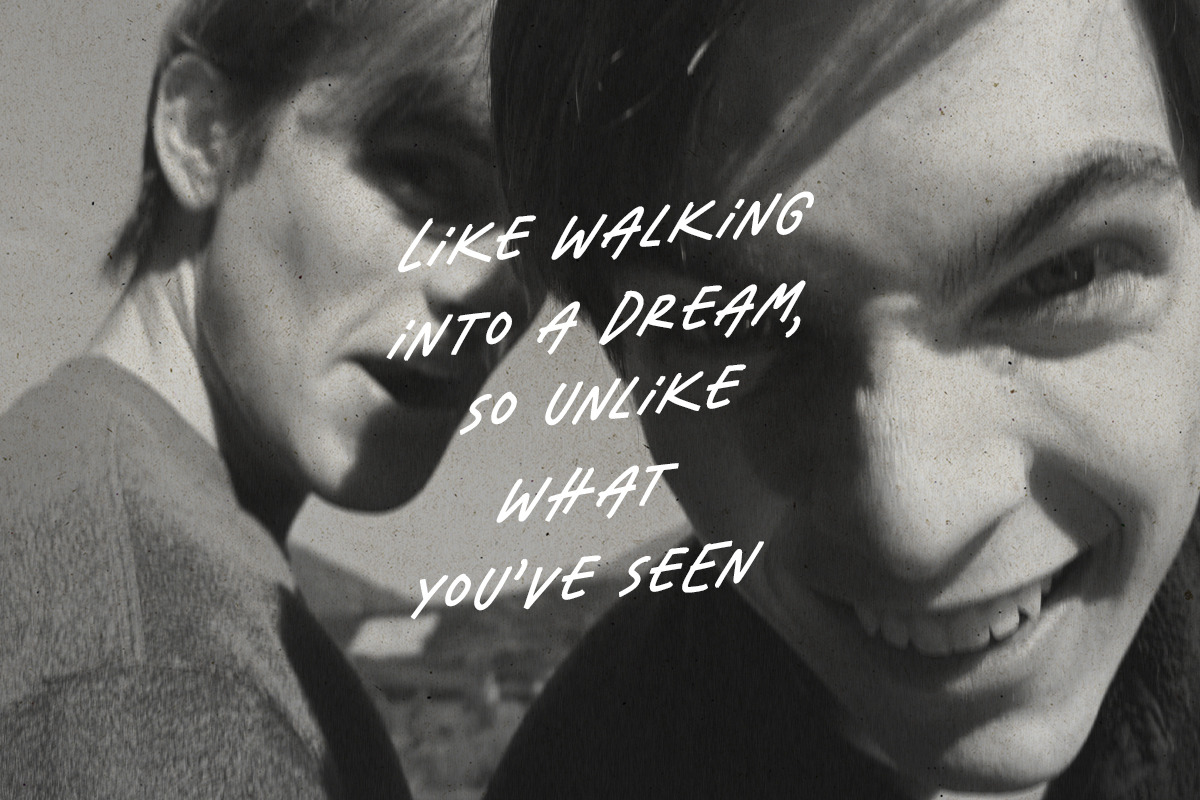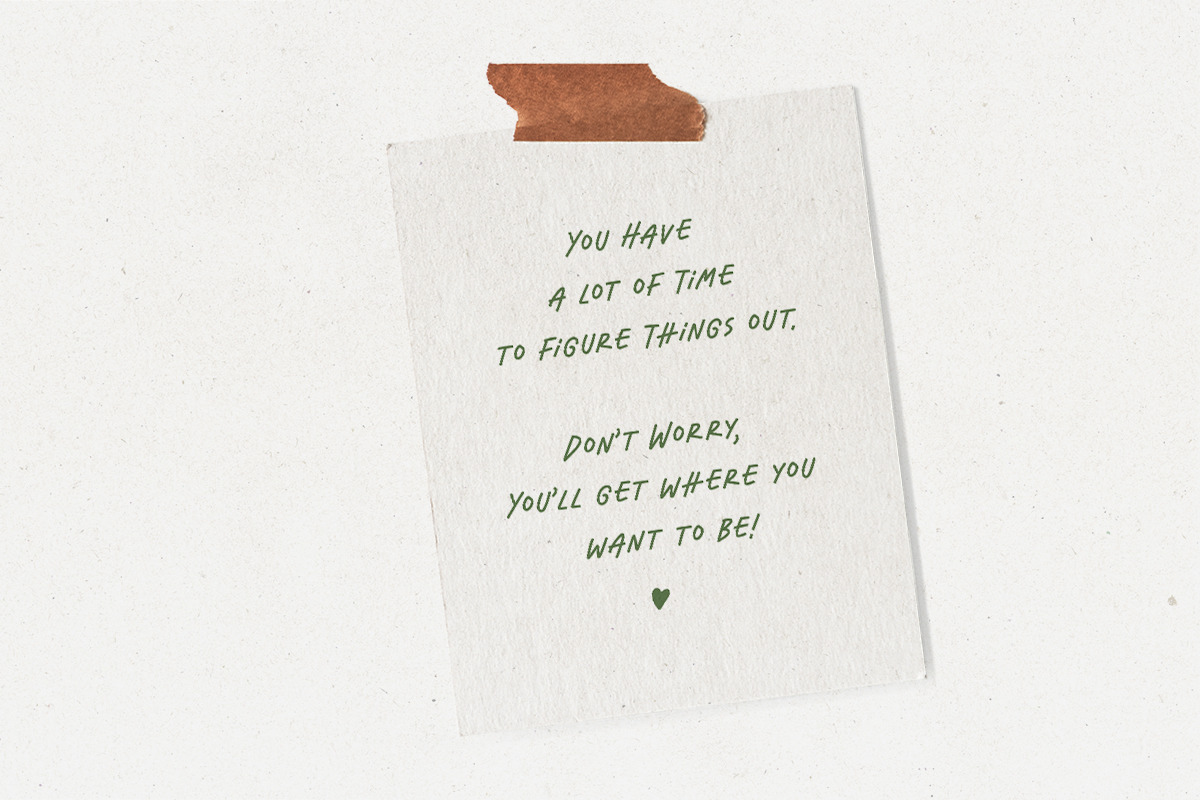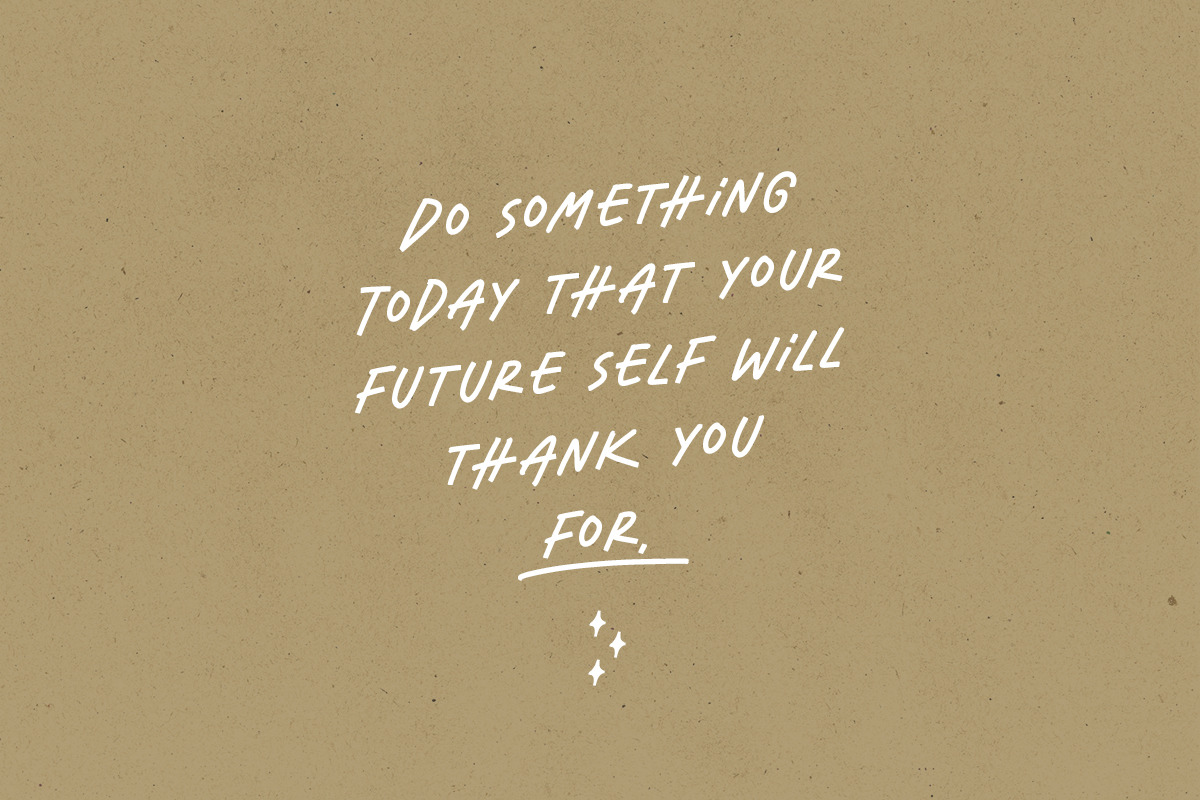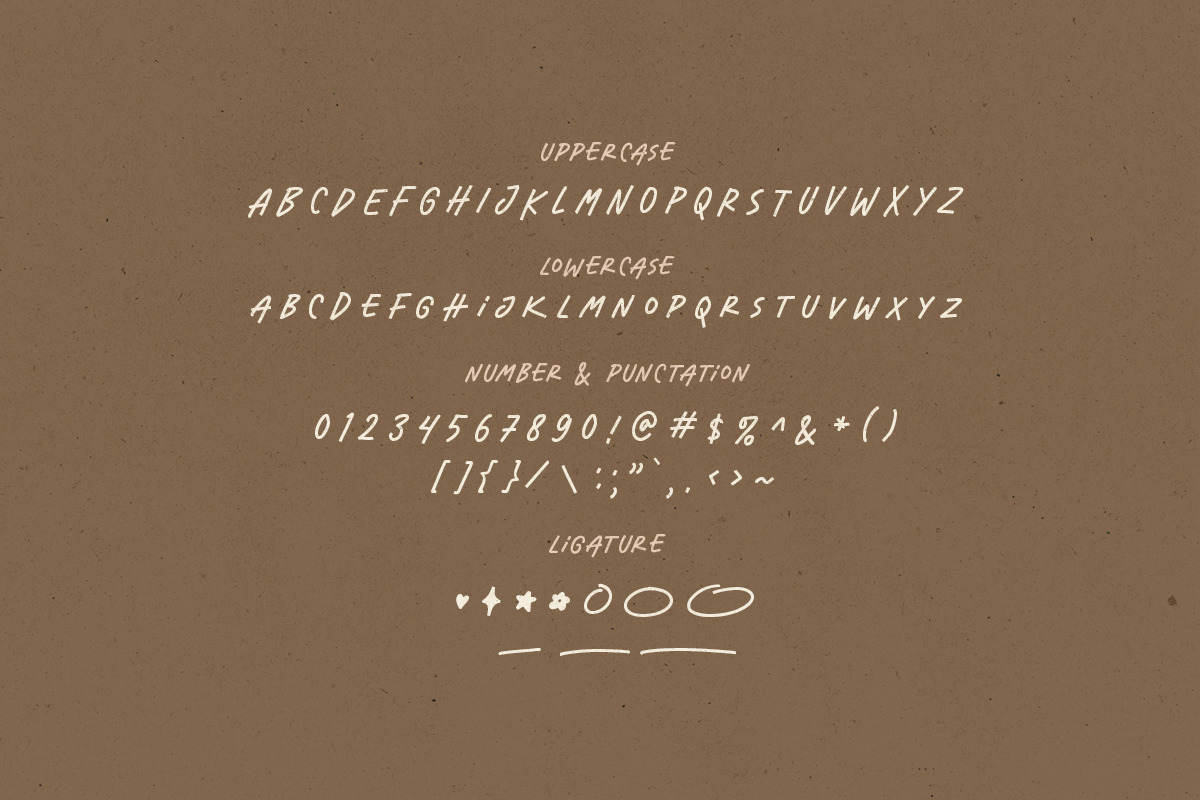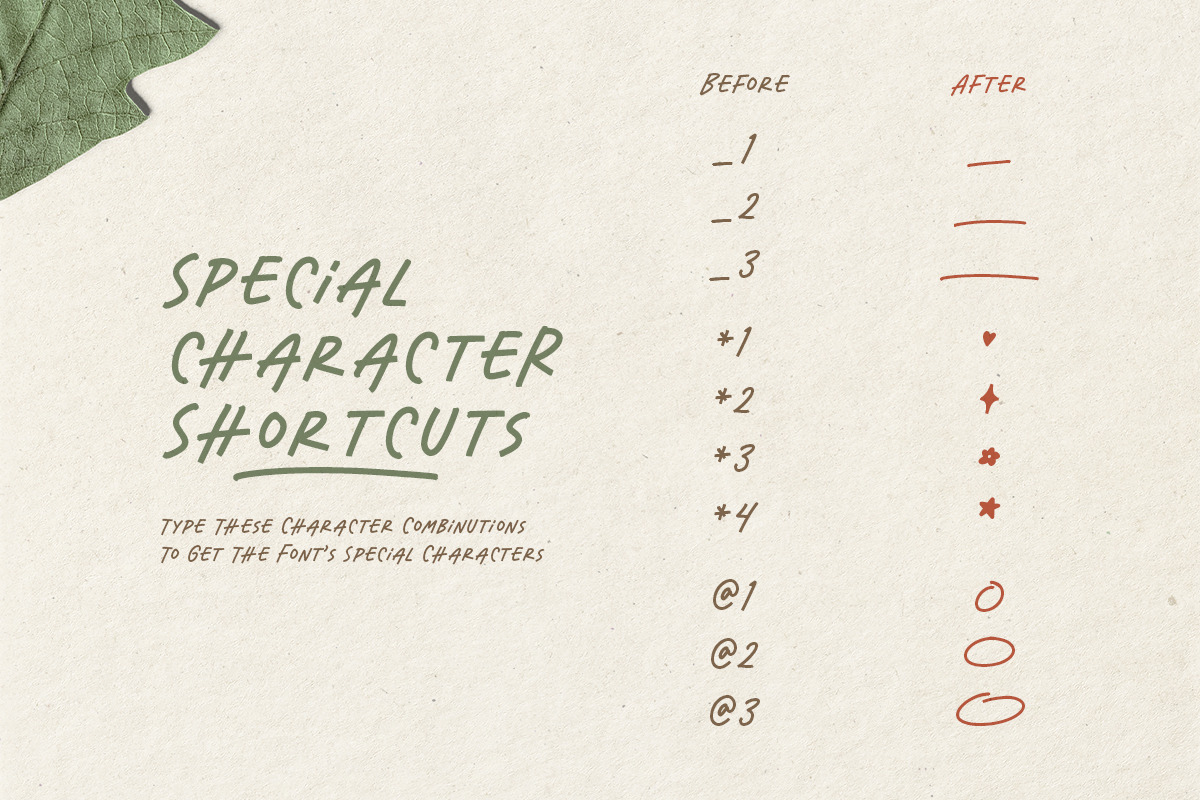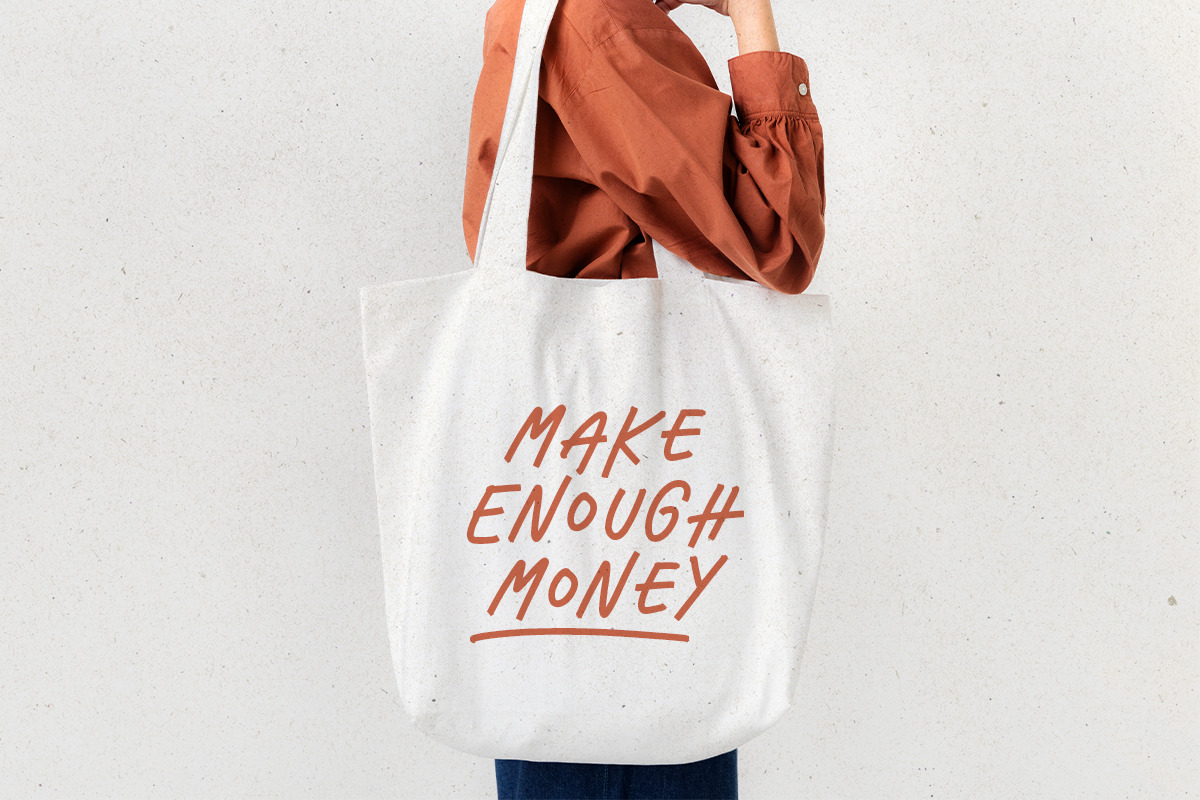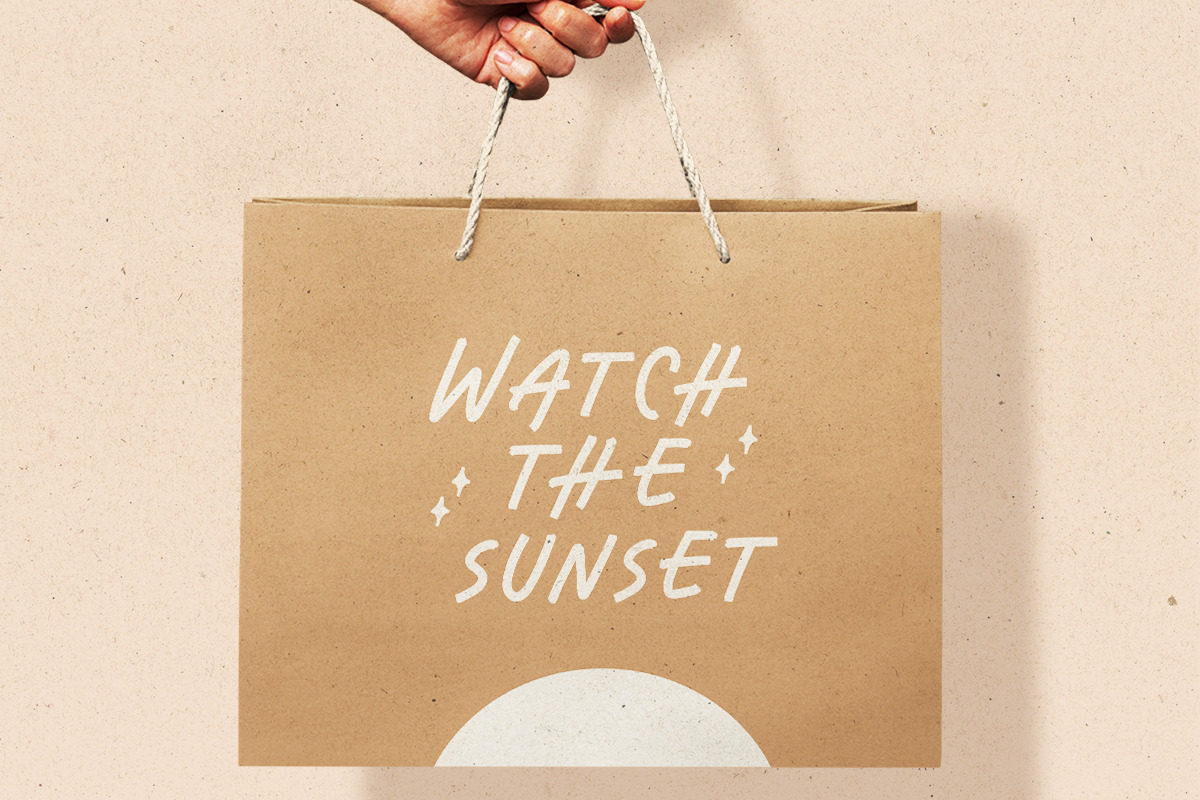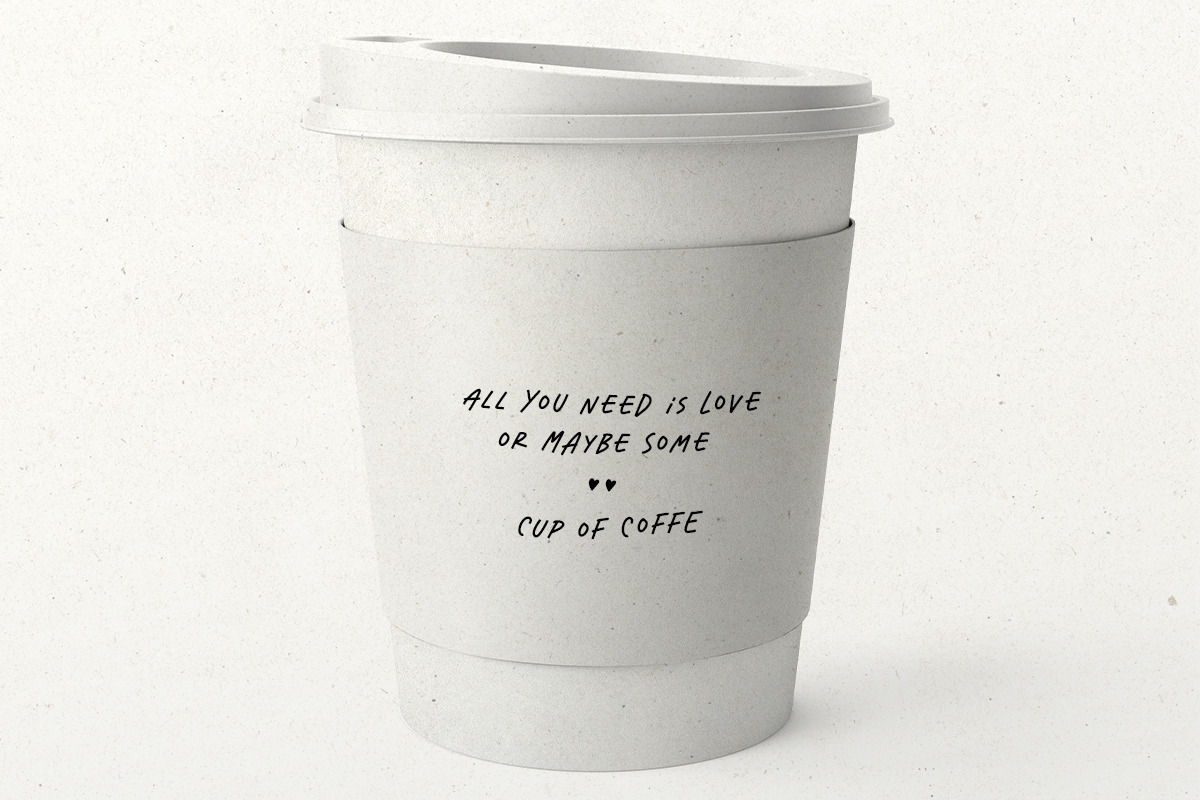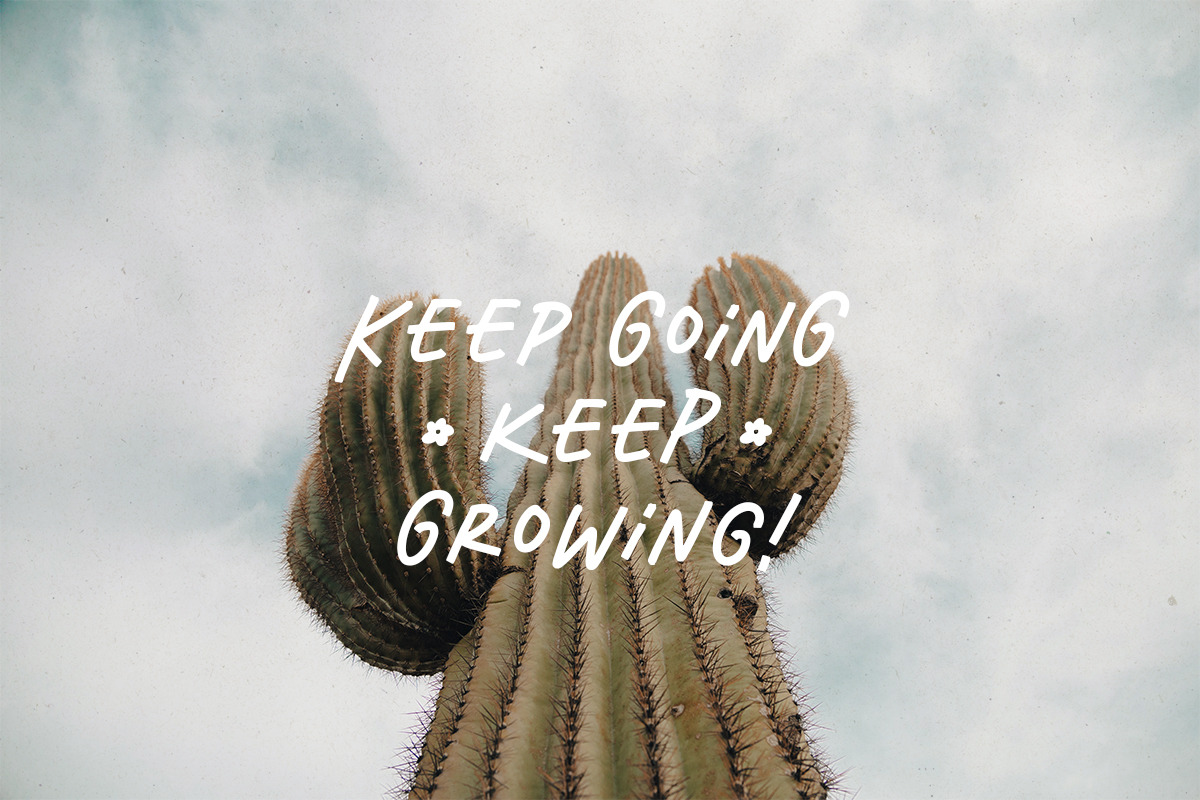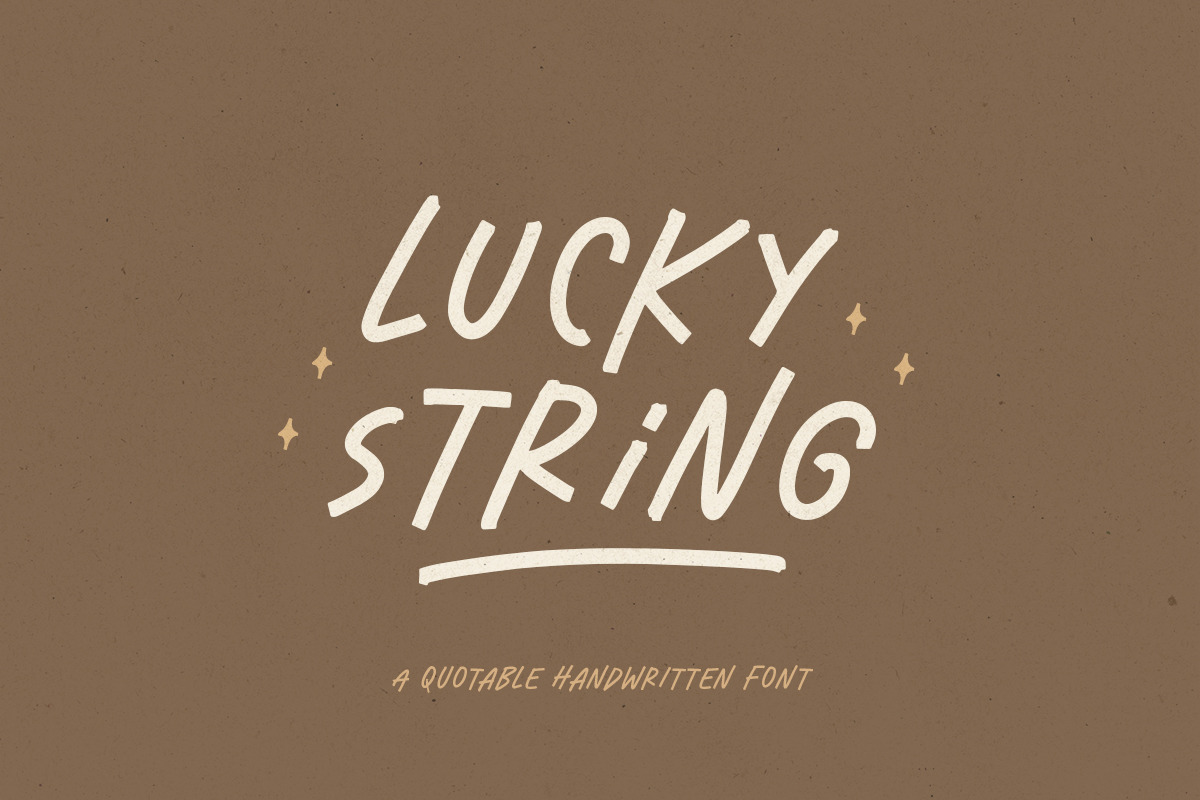
Lucky String - Quotable Font
Lucky String is a quotable handwritten font. This font is versatile for any project especially designs that need a touch of hand. This font also contains unique lowercase that will make your project more natural. Don't worry, this font also including the objects such as a love, star, and more that you can access from opentype features. This font also support multilingual.